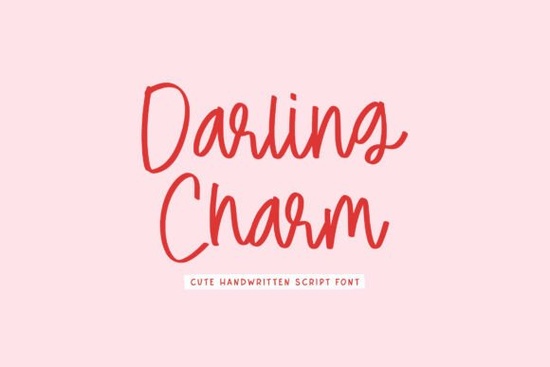
If you're looking for a friendly, hand-drawn script font that feels personal without being overly cutesy, the Darling Charm Font is worth trying. Designed by Timurtype Studio, it’s a lightweight handwritten script with gentle curves, natural spacing, and subtle variation in stroke weight just like real pen-on-paper writing. It works well for projects where warmth and approachability matter more than formality: think baby shower invites, small-batch product labels, Instagram story quotes, or boutique branding for handmade goods.
What makes Darling Charm different from other script fonts?
Not all handwritten fonts feel authentic. Some look too uniform or overly digitized. Darling Charm avoids that by keeping letterforms soft and slightly irregular like someone carefully writing with a fine-tip marker. The lowercase “a”, “g”, and “y” have open, rounded shapes that add friendliness. Uppercase letters lean gently to the right, giving motion without looking rushed. And because it includes both OTF and TTF files as well as WOFF for web use you can use it across print, desktop apps, and simple websites without conversion hassles.
Multilingual support means it covers basic Latin-based languages (including accents used in French, Spanish, Portuguese, and German), so if you’re designing for international customers or bilingual audiences, you won’t need to swap fonts mid-project.
Where does Darling Charm fit in your design toolkit?
Think of it as your go-to for moments when you want something sweet but not saccharine. It’s lighter and airier than Mafuinka Font, which has bolder contrast and more dramatic flourishes great for headlines, but maybe too much for delicate packaging. Compared to Baseball Handwriting Font, Darling Charm feels quieter and more intimate, while still holding its own at medium sizes.
It also sits nicely alongside more relaxed scripts like Ordinary Summer Font both share a casual rhythm but Darling Charm leans slightly more polished, making it easier to pair with clean sans-serifs or even light serifs like Bright Font for contrast. If you’ve used Friends Font, you’ll notice Darling Charm has less bounce and more flow ideal when you want charm without distraction.
Real uses that work well
- Print-on-demand products: Works on mugs, tote bags, and greeting cards especially when paired with minimal line art or soft watercolor backgrounds.
- Social media graphics: Great for quote posts, weekly affirmations, or behind-the-scenes studio updates its readability at smaller sizes (down to ~16px on screen) helps.
- Small business branding: Perfect for bakeries, florists, children’s clothing lines, or wellness practitioners who want a human voice in their visual identity.
- Digital planners & printable kits: Because it supports standard punctuation and numerals, it’s usable in Canva templates or Notion-style layouts.
Things to keep in mind before using it
Darling Charm isn’t built for long paragraphs or dense text it’s a display font first. Avoid using it for body copy, legal disclaimers, or anything requiring high legibility at small sizes. Also, while it includes multilingual characters, it doesn’t support Cyrillic, Arabic, or East Asian scripts. If your audience includes those languages, plan to layer in a compatible fallback font.
- ✅ You need a warm, handwritten script not ultra-bold or decorative
- ✅ You’ll use it mostly for short phrases, titles, or accent text
- ✅ You’re working with English or Western European languages
- ❌ You don’t need extensive language coverage or extended OpenType features like stylistic alternates
If that matches your needs, Darling Charm Font is a thoughtful, quietly versatile choice no extra effort needed to make it feel intentional.